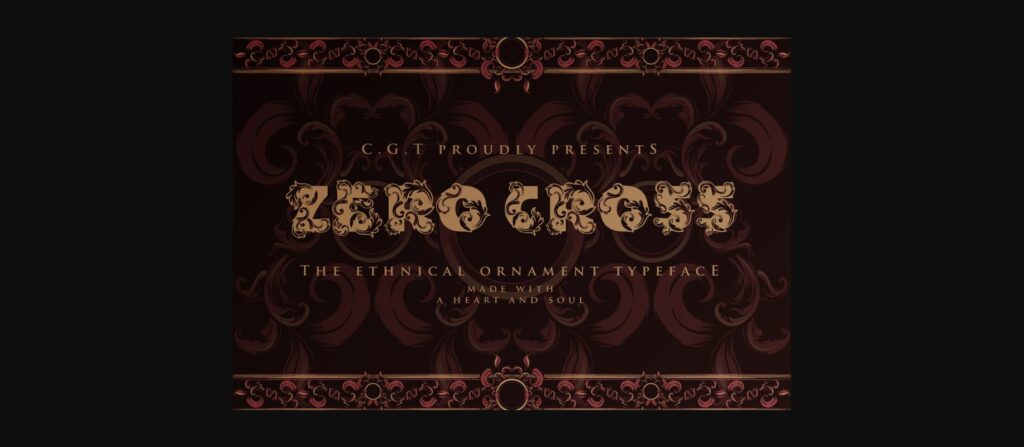
Zero Cross Font
About Zero Cross Font
Zero Cross is a vintage decorative font. It features a unique and gorgeous look and it’s perfect for creating original and outstanding designs!